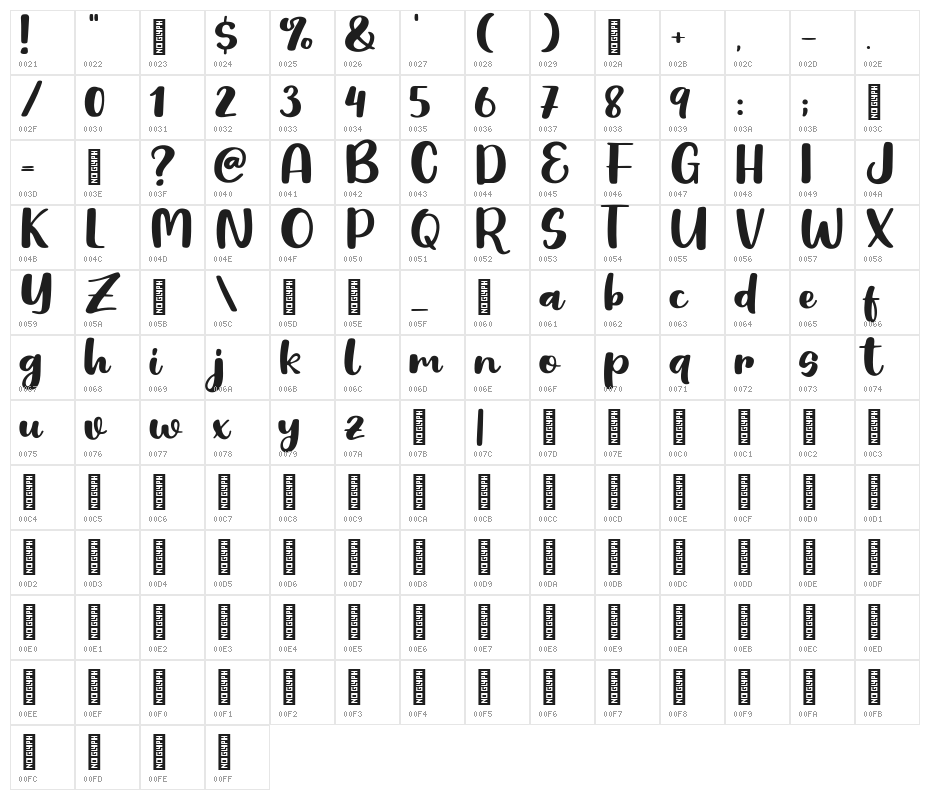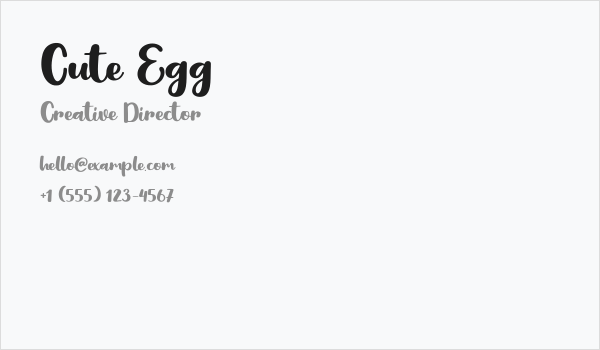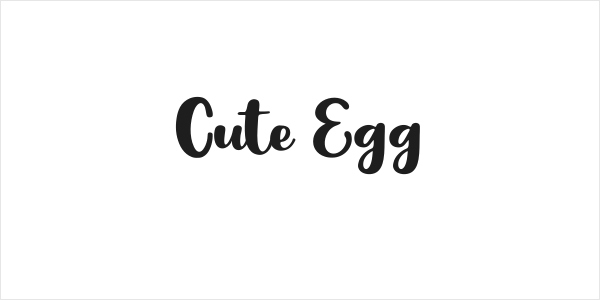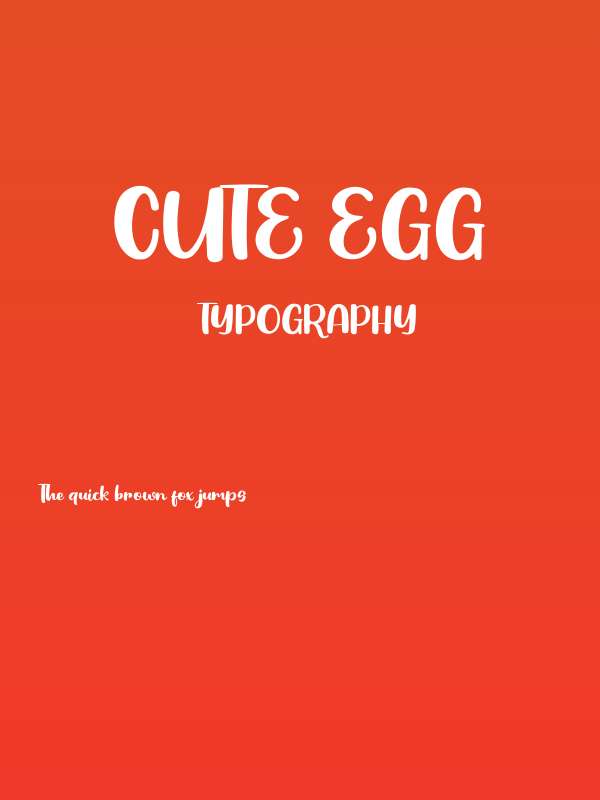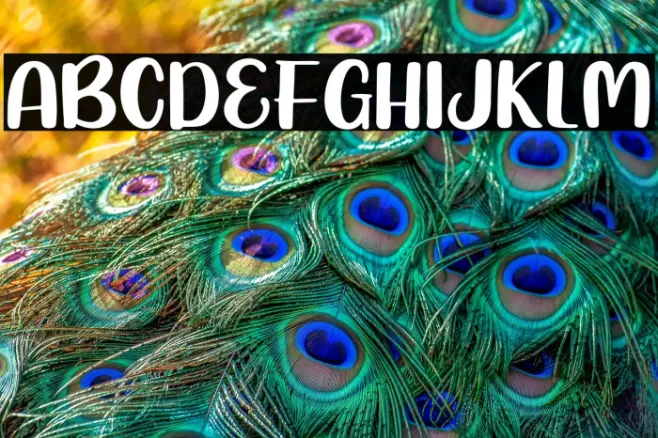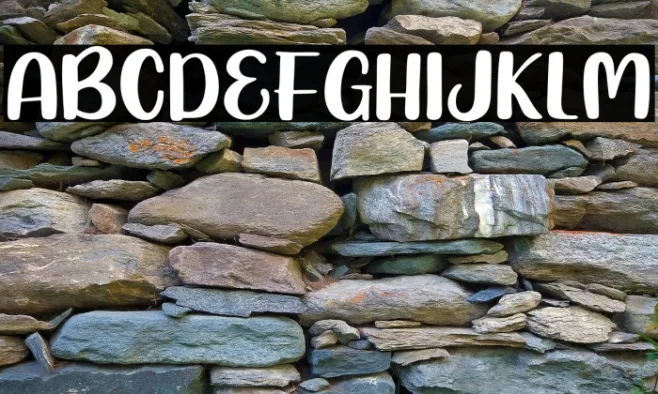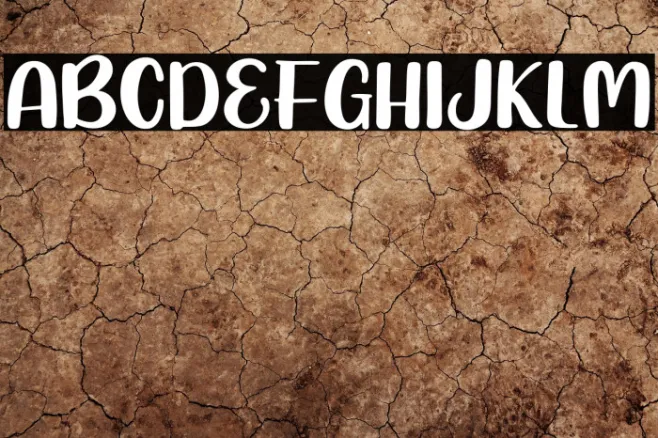
Cute Egg Font
Cute Egg Description
This playful and bold font features a handwritten style with a smooth, flowing appearance. The characters are rounded and slightly irregular, giving them a whimsical and friendly feel. The uppercase and lowercase letters maintain a consistent style, with the lowercase letters exhibiting a charming, casual flair. The numbers are equally bold and rounded, matching the overall aesthetic of the alphabet. Special characters are included, maintaining the same playful and approachable design. This font is ideal for projects that require a touch of personality and warmth.